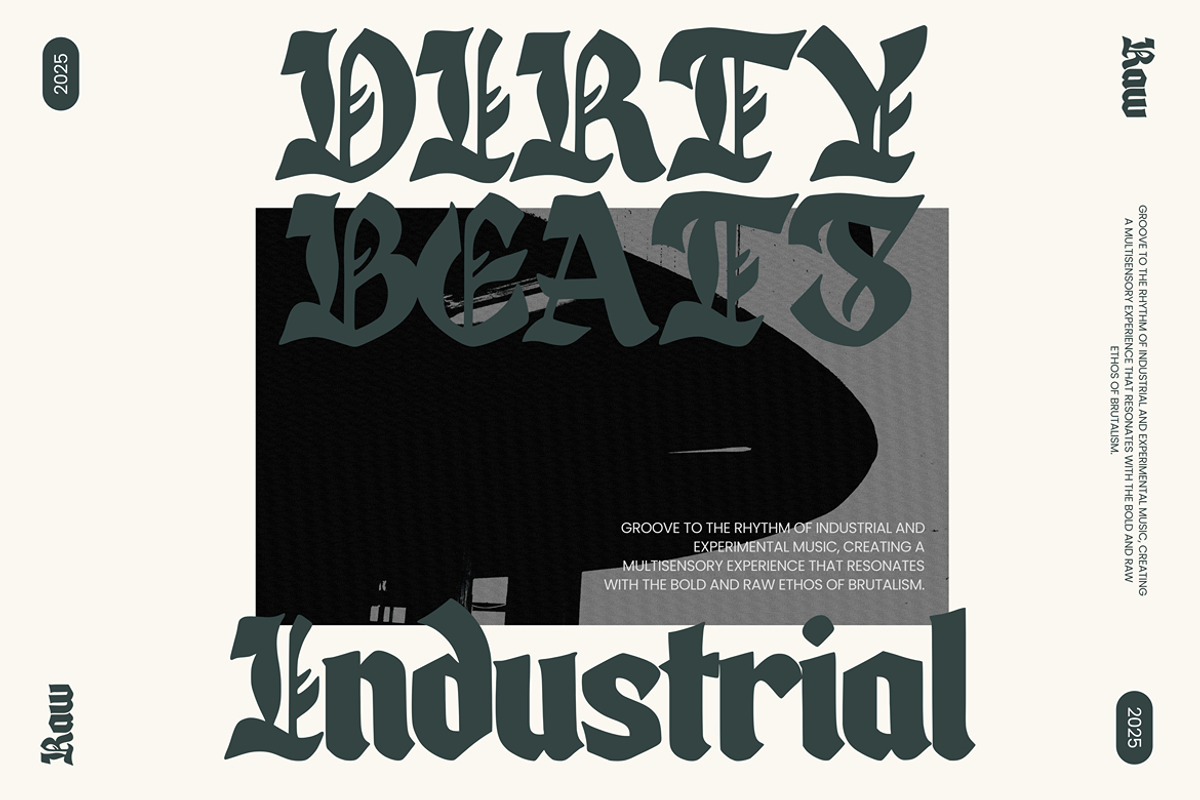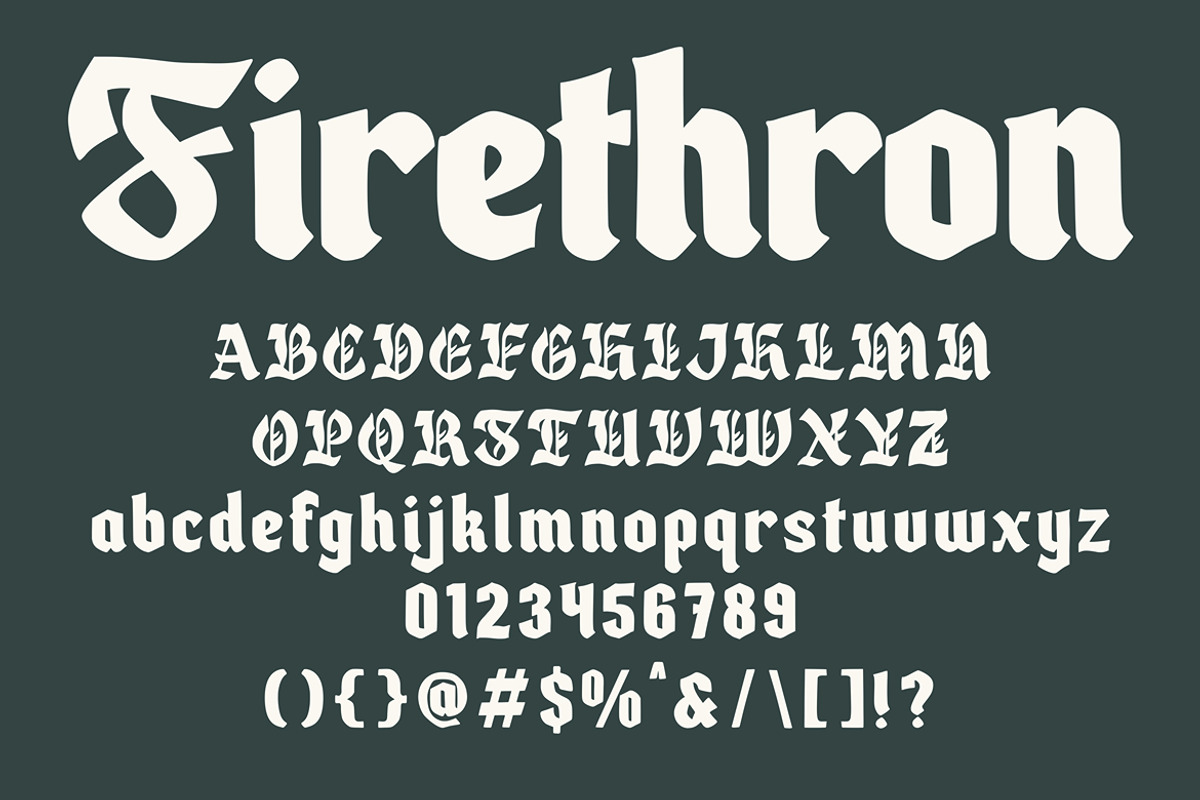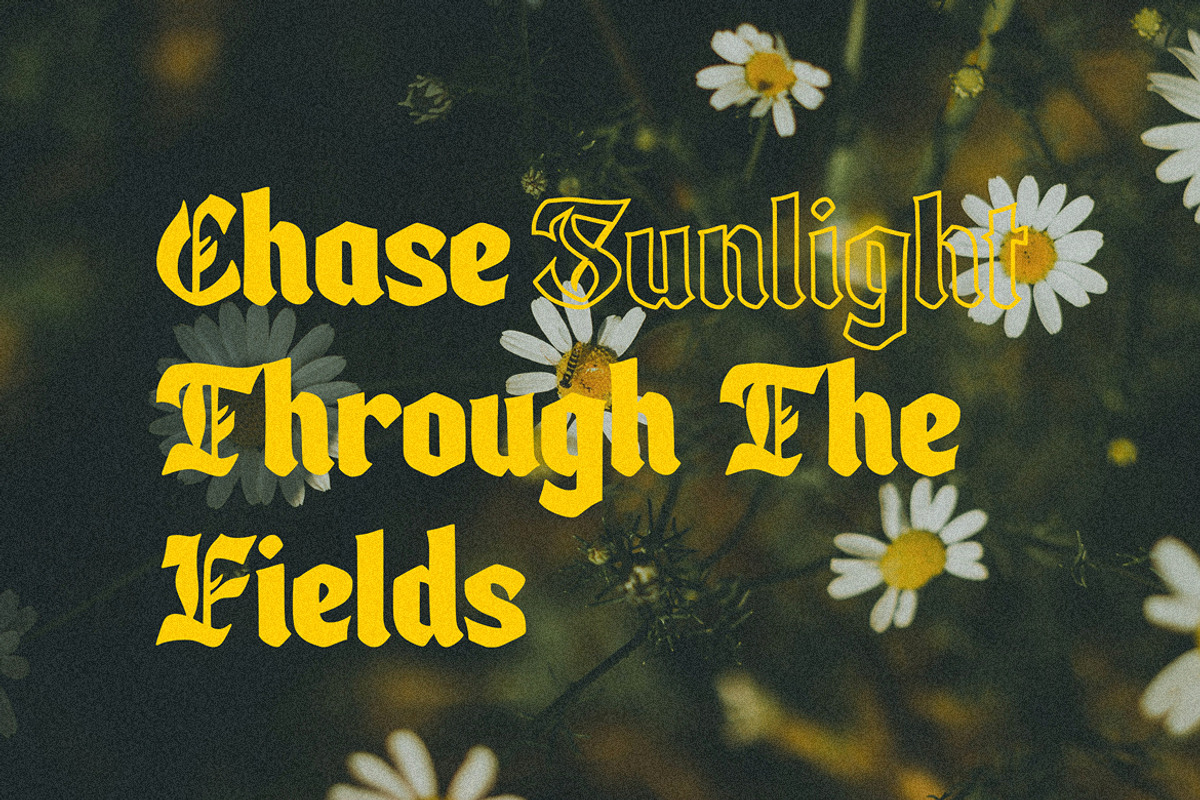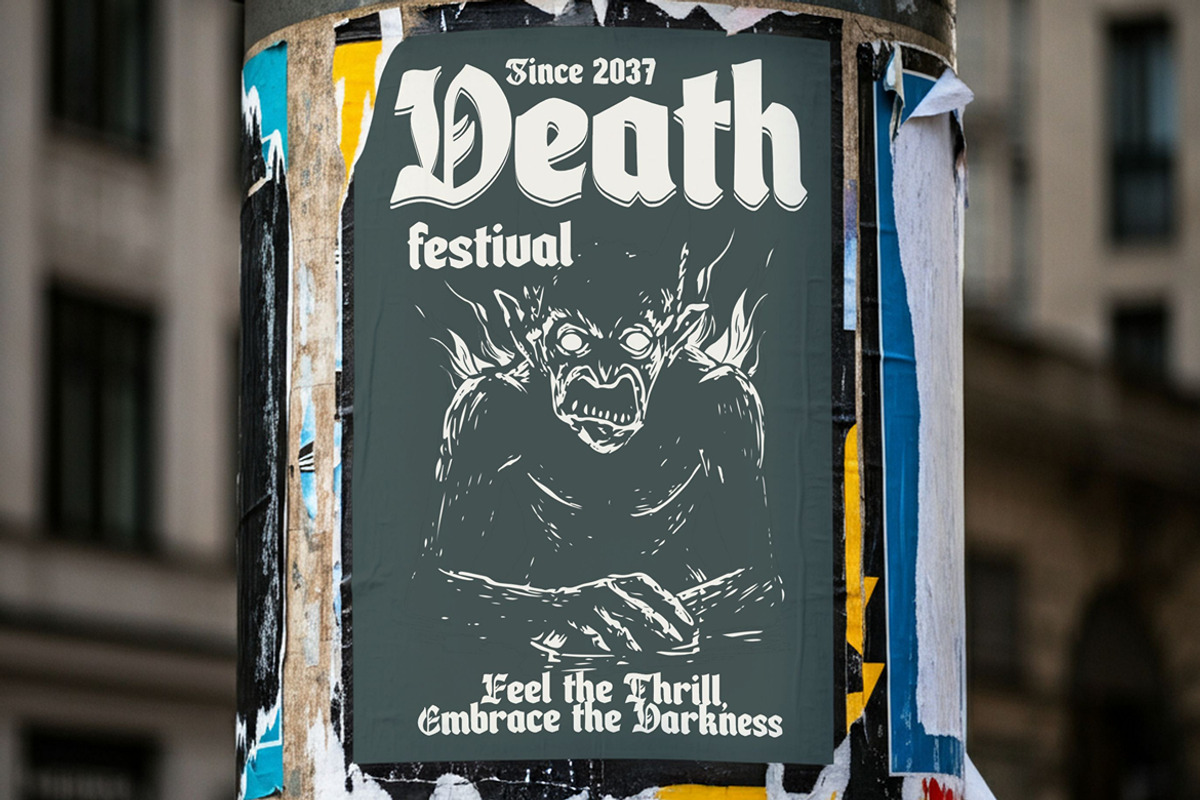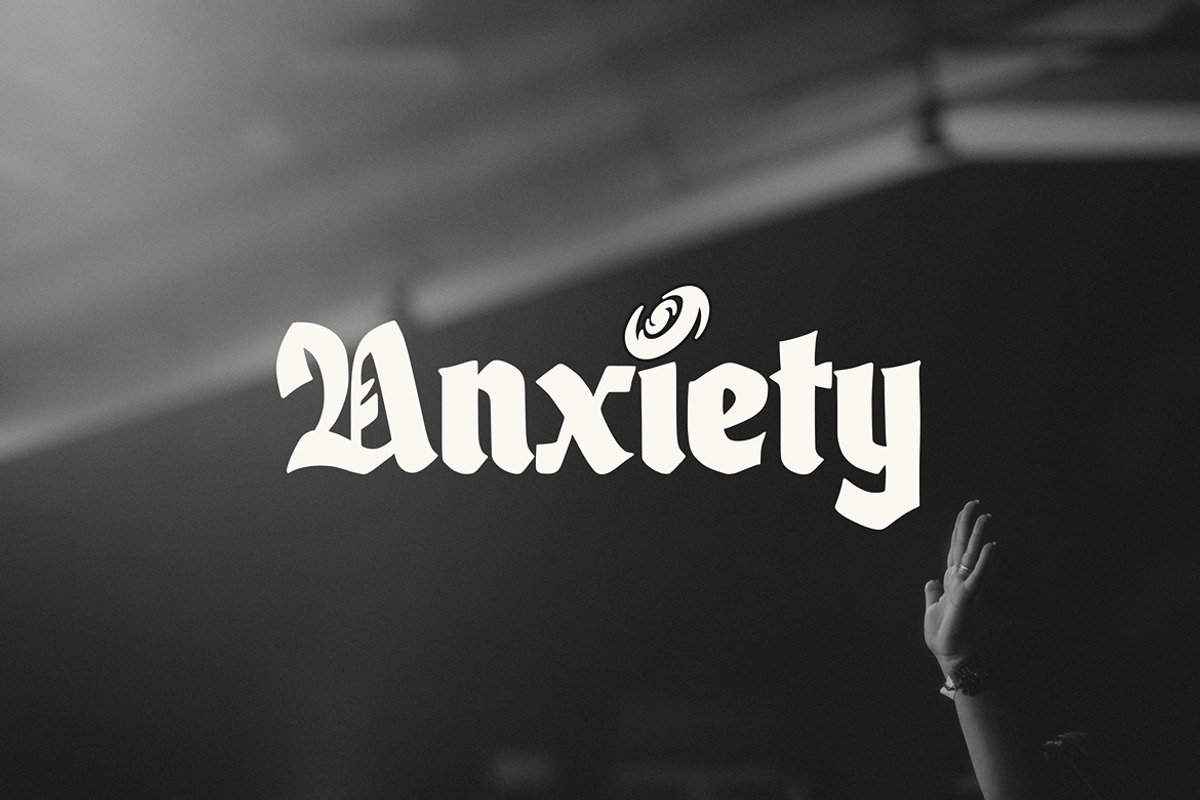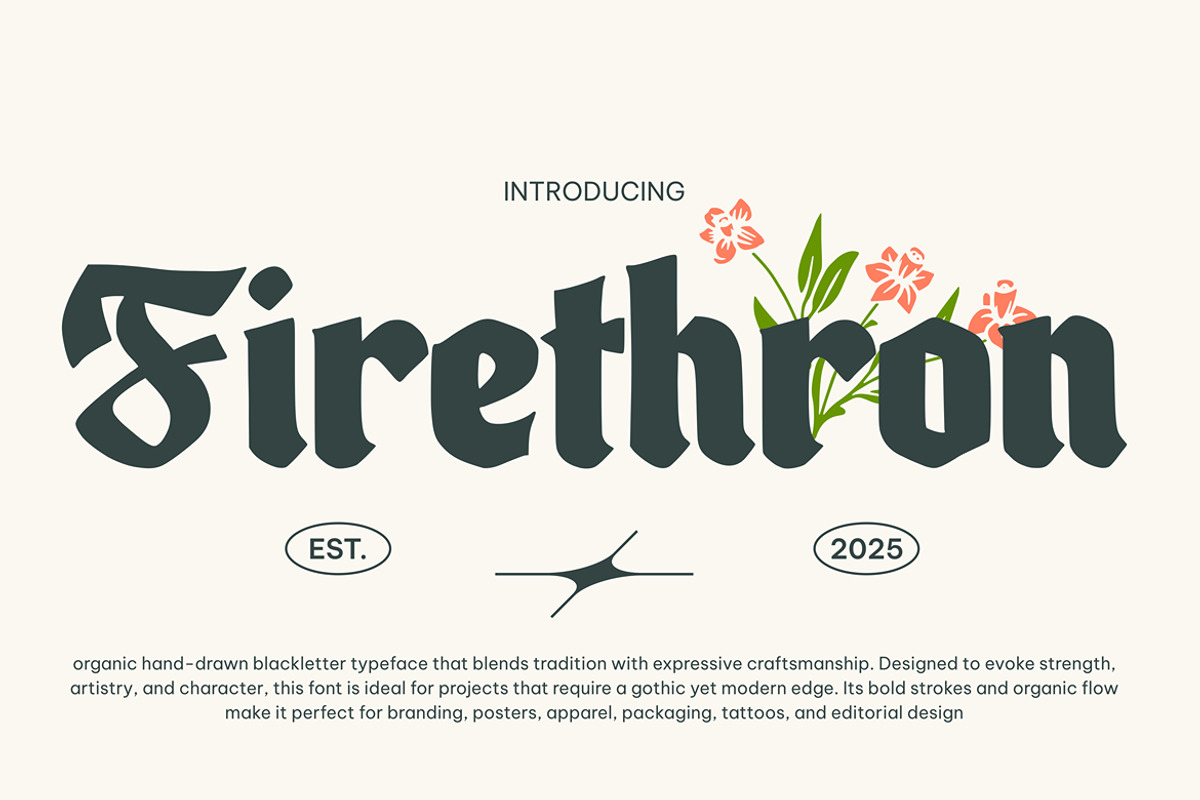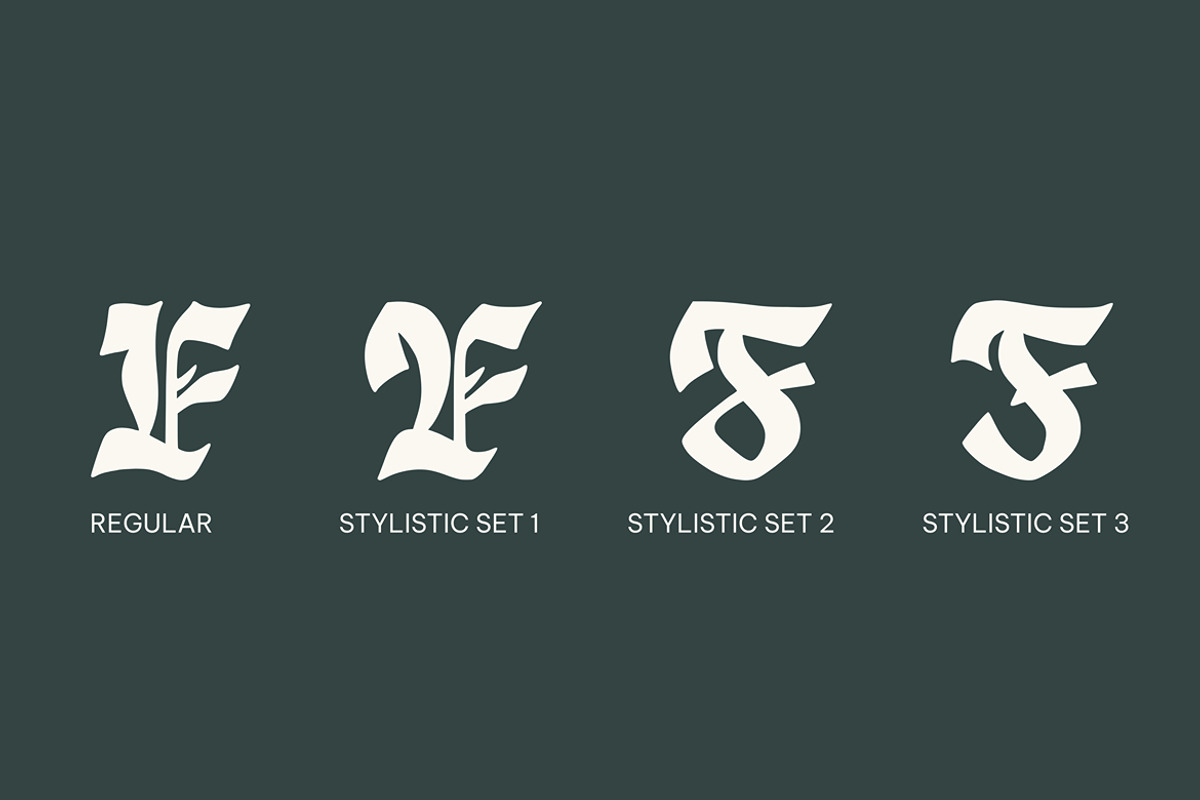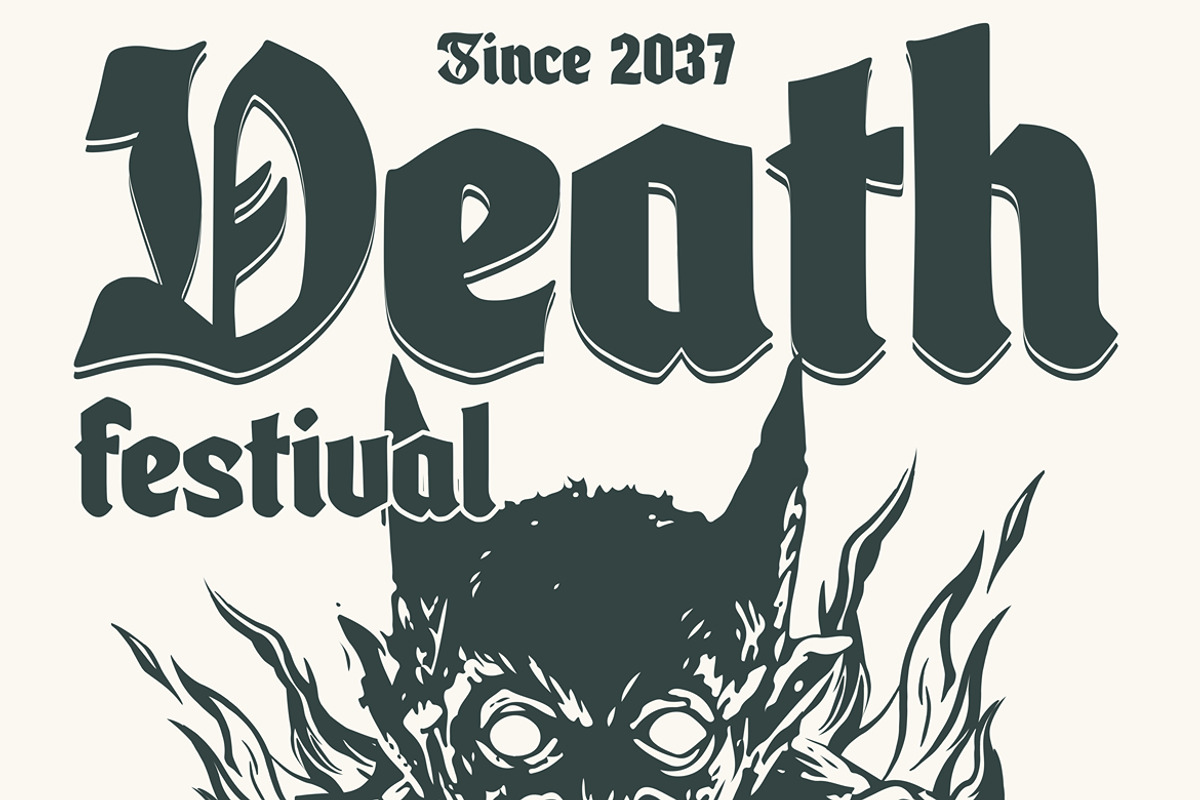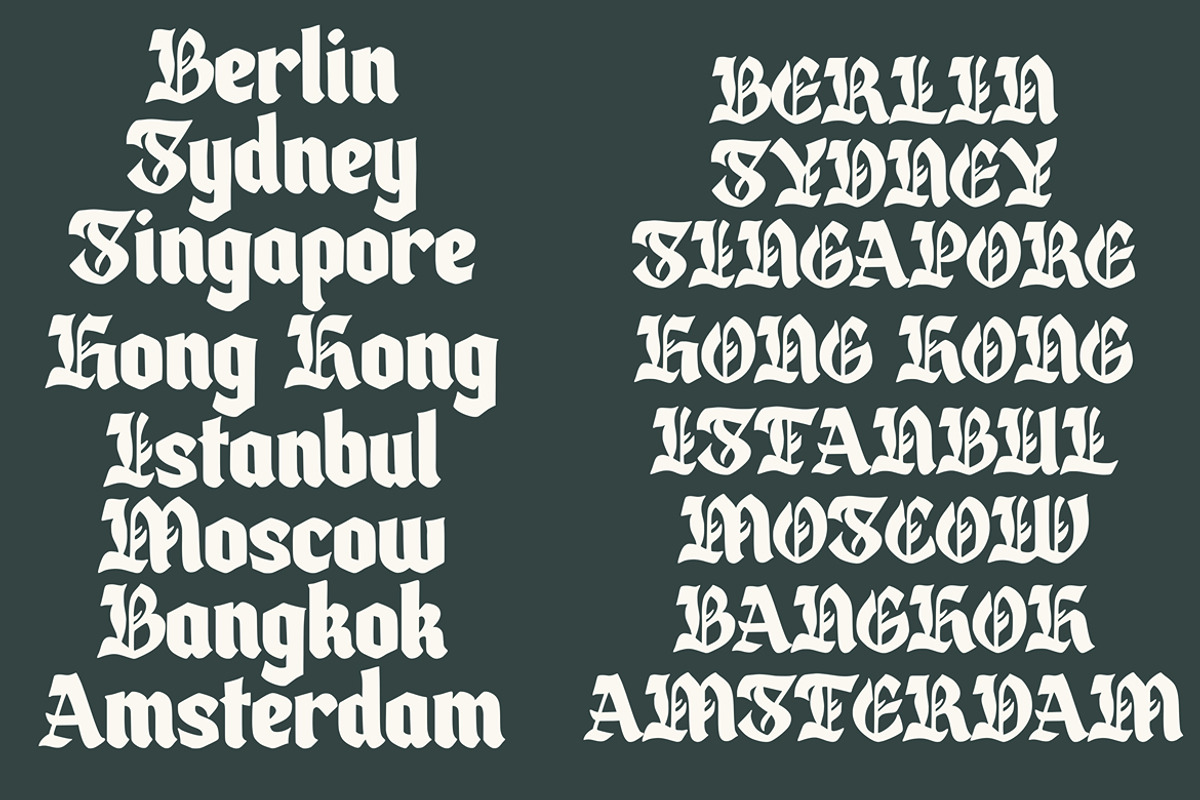
Firethron – Organic Blackletter Type
Introducing Firethron – Organic Blackletter Typeface
Firethron is an expressive blackletter typeface that blends timeless tradition with a modern artistic spirit. Crafted with organic strokes and a sense of strength, this typeface brings depth and character to any creative project. Its bold letterforms are perfect for headlines, branding, editorial layouts, posters, packaging, and digital artworks. With its gothic-inspired yet contemporary edge, Firethron provides a unique balance of power and elegance, making it a versatile choice for designers who want their work to stand out with both authority and artistry. Whether used for bold statements or intricate details, Firethron is built to leave a lasting impression.